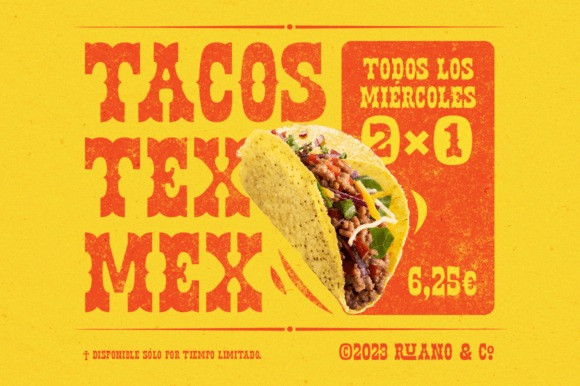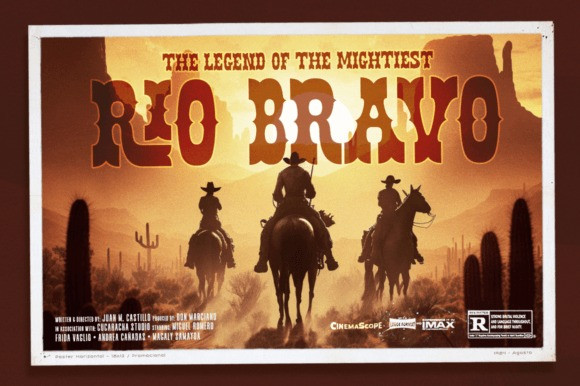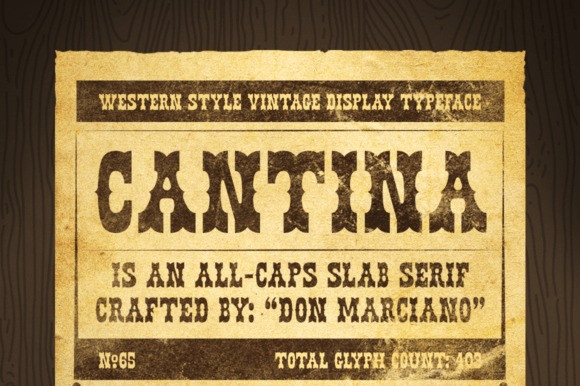
Cantina Font
Saddle up and get ready for a wild ride with our bold and daring slab-serif font. Inspired by the ruggedness of the Wild West, this font features sturdy serifs and striking strokes that convey strength and power. Ideal for anything from branding to packaging design, this font is sure to make a statement. This font is PUA encoded which means you can access all glyphs and swashes effortlessly!